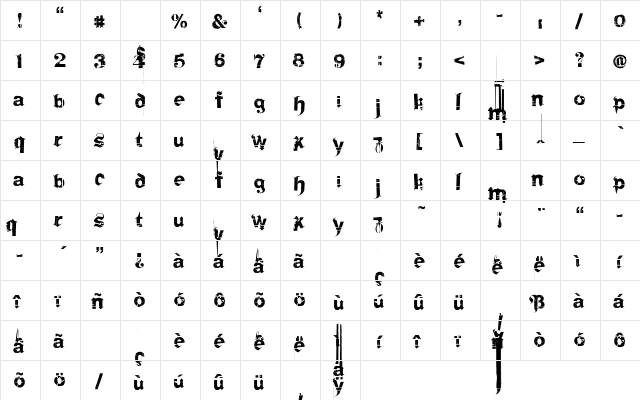
Frakturika Spamless Regular
Design Context for Frakturika Spamless Typeface
Frakturika Spamless channels the dramatic heritage of Fraktur and Gothic scripts, bringing a sense of historical gravitas to any design.
Well-suited to band logos, craft beer branding, tattoo lettering, and heritage-themed identities.
Font Pairing: Pair with a clean neutral sans-serif for body copy to let Frakturika Spamless's character lead without overwhelming the composition.
Pro Tip: Use Frakturika Spamless sparingly at large sizes. Even a single word set in blackletter can define the visual register of an entire design.